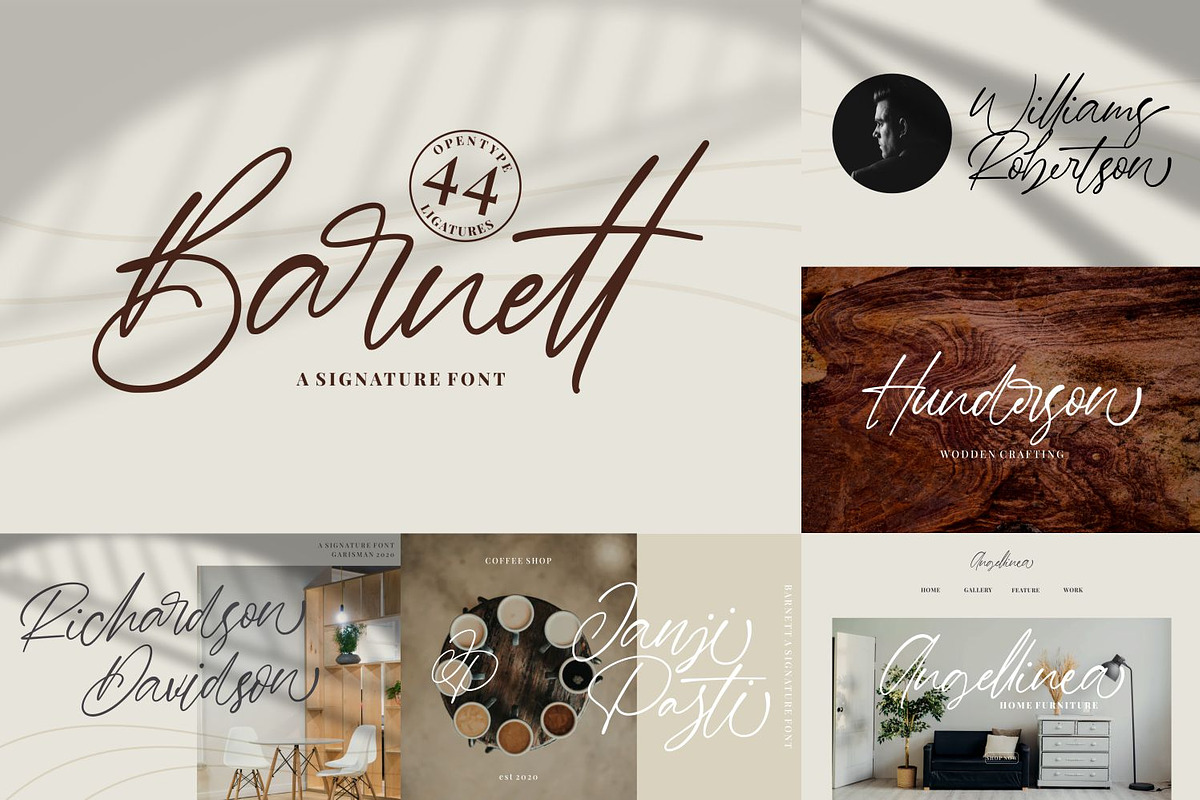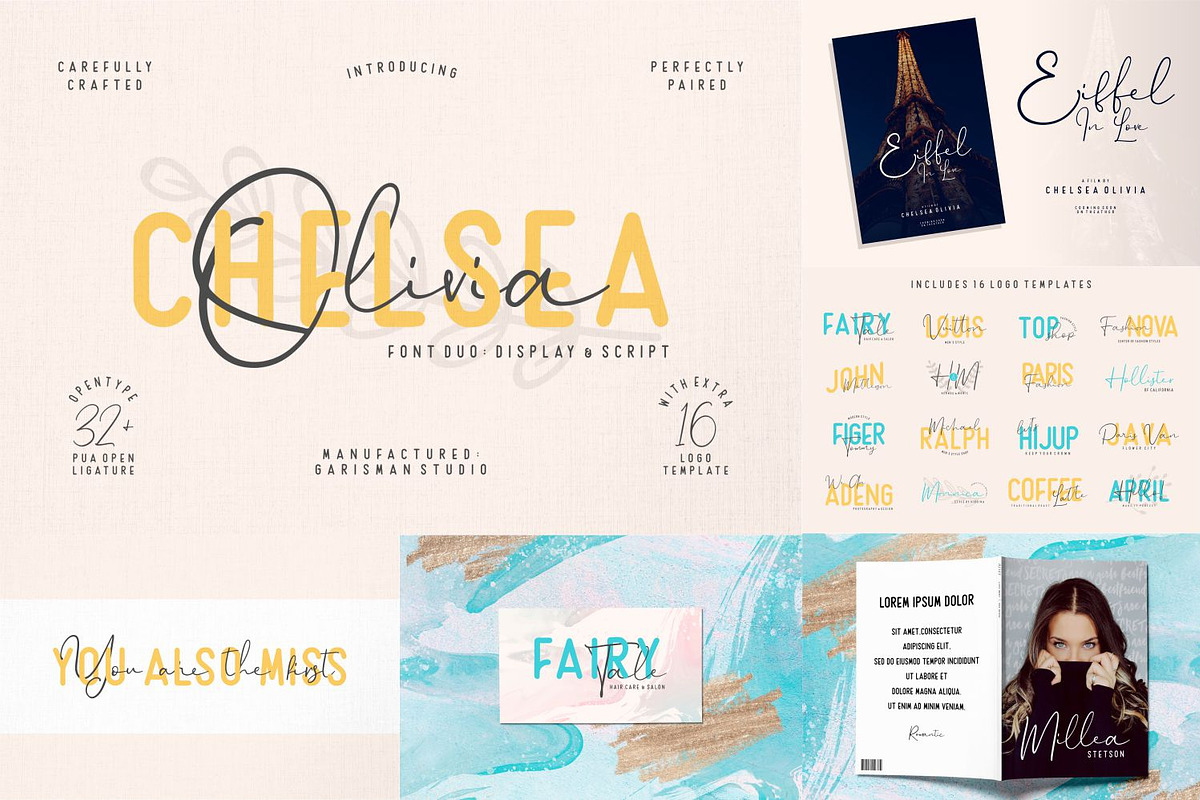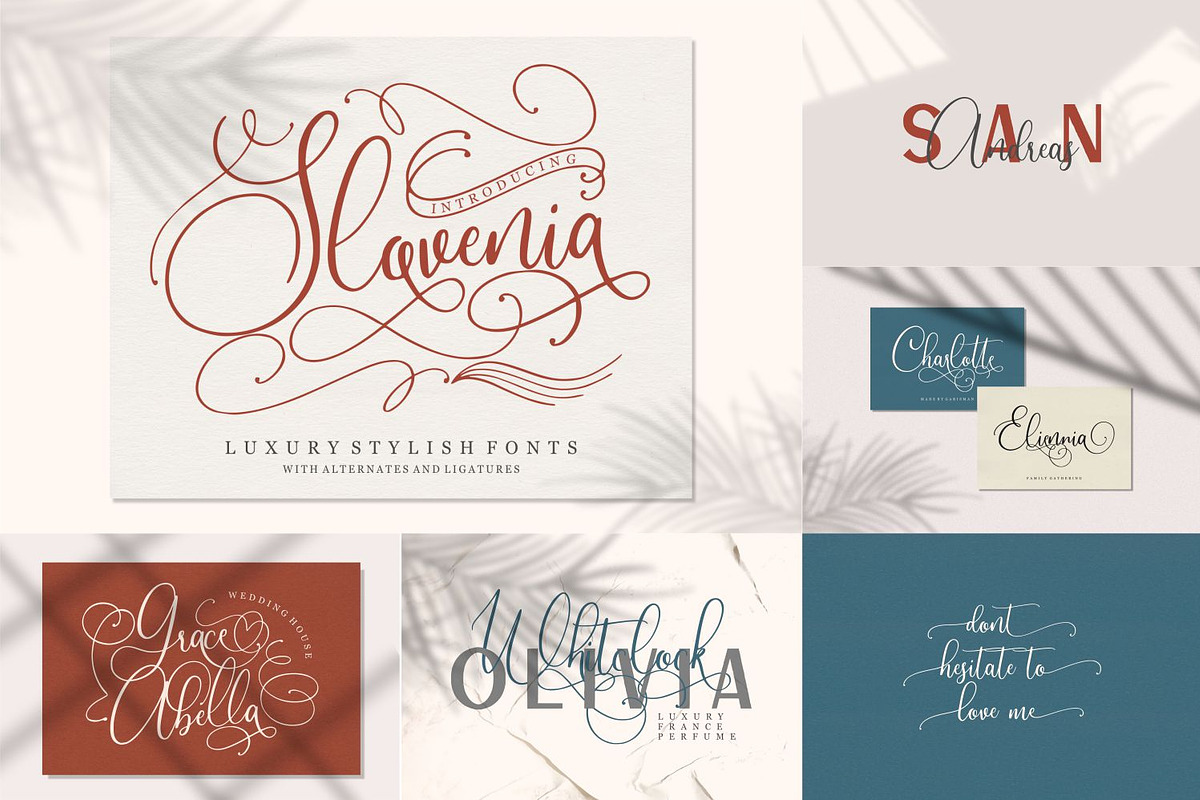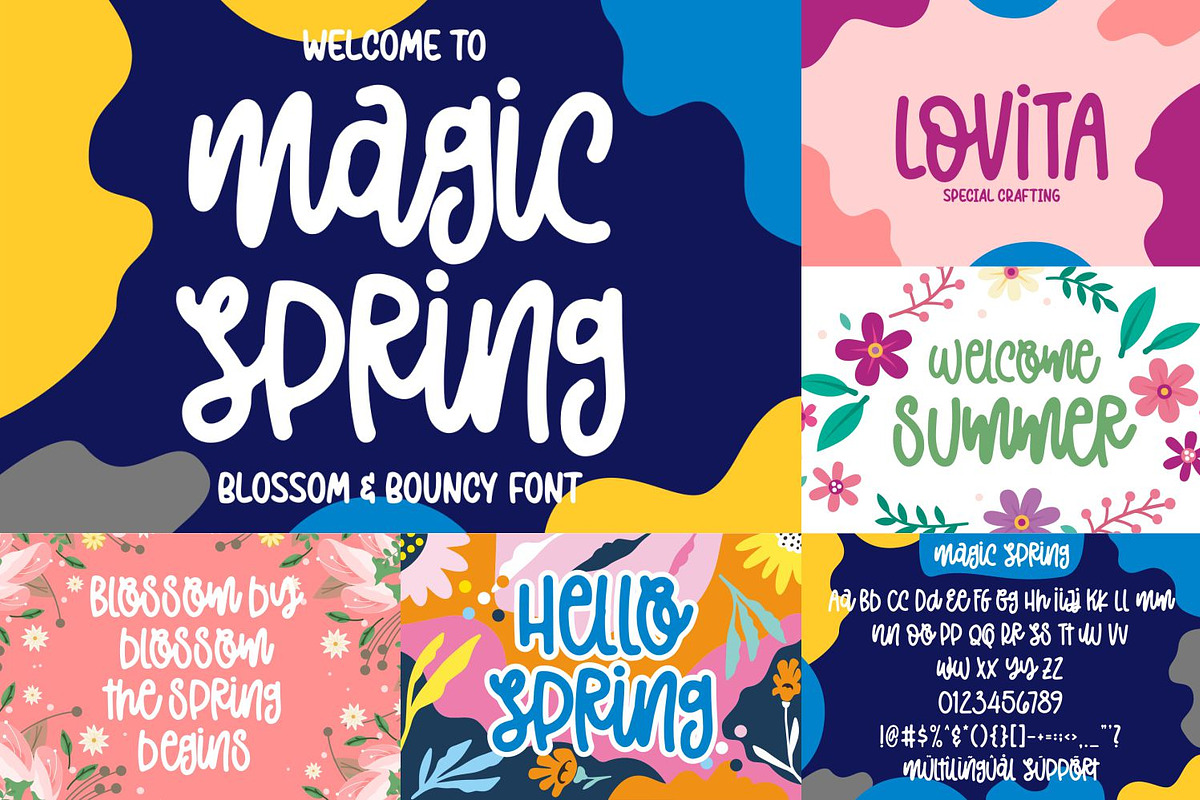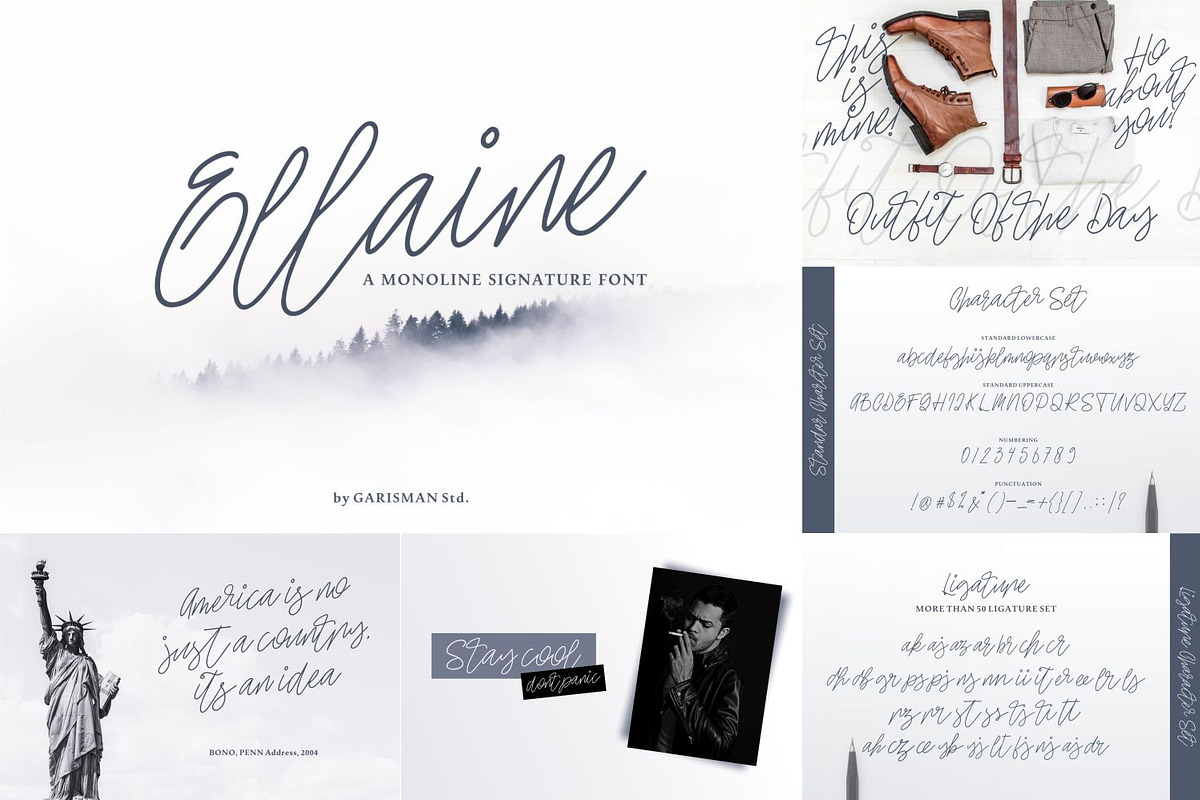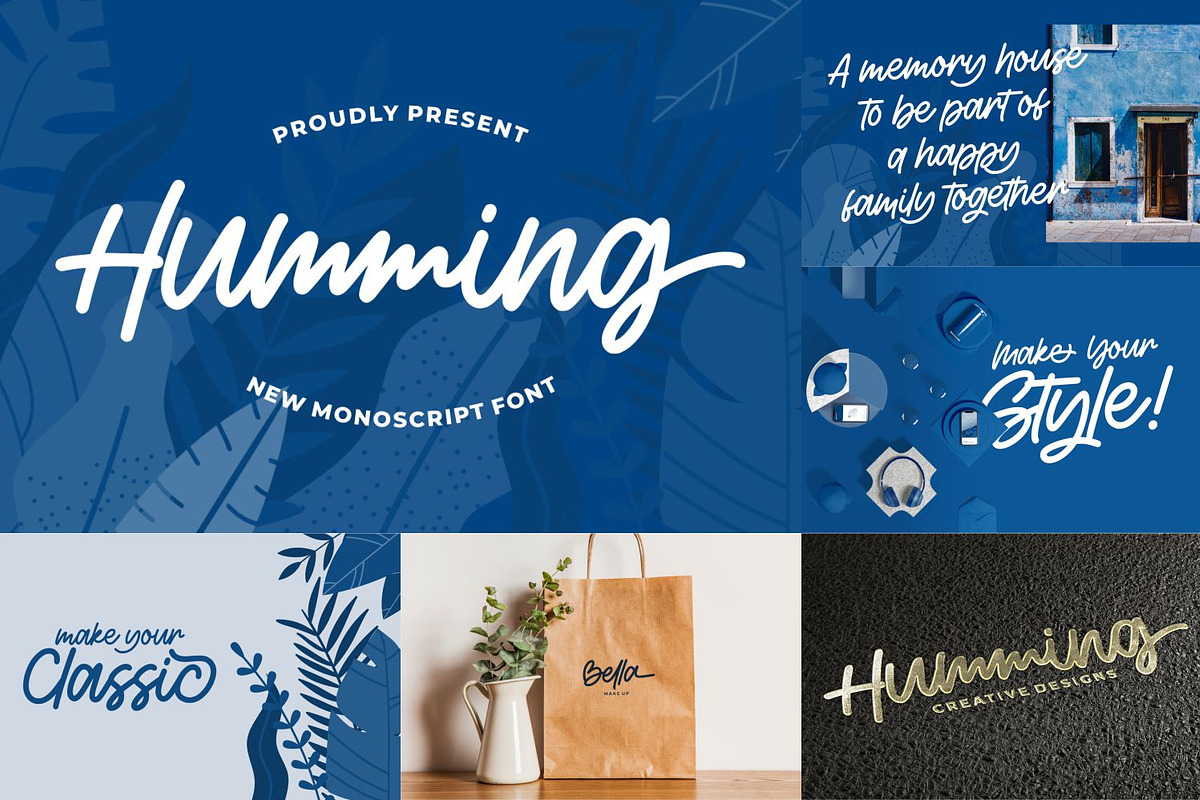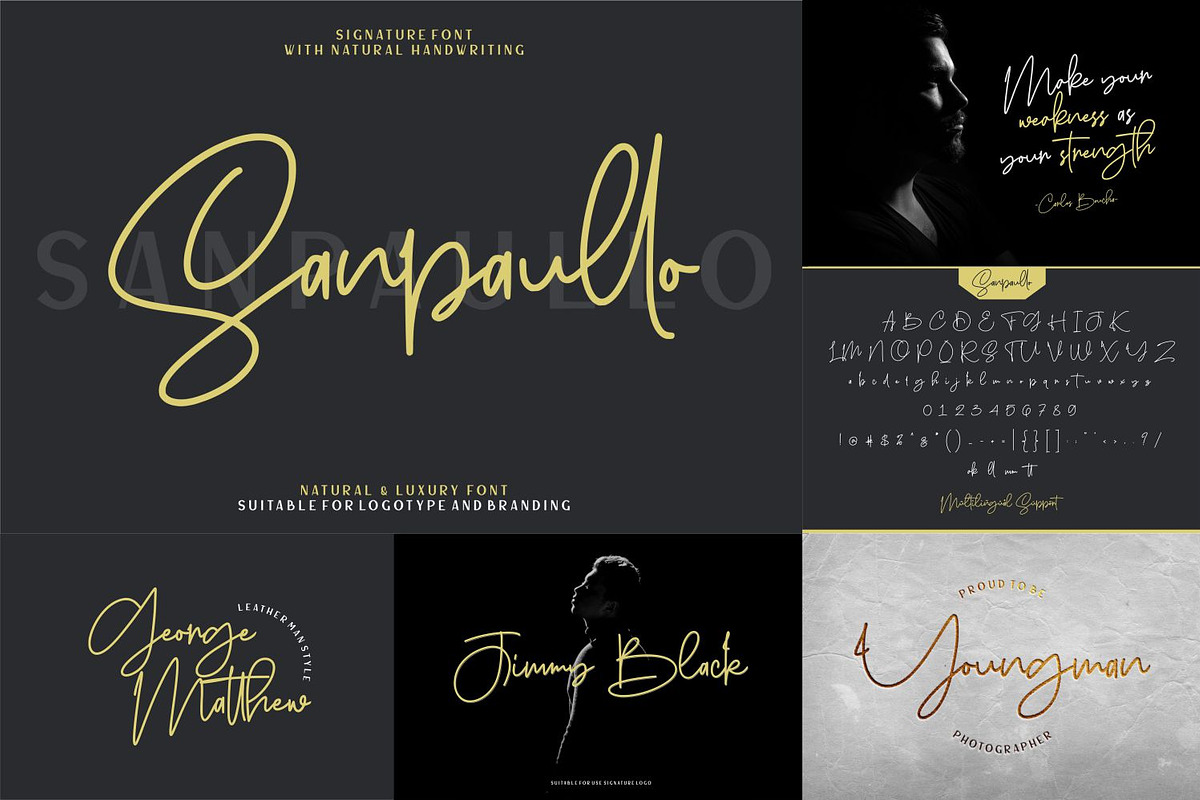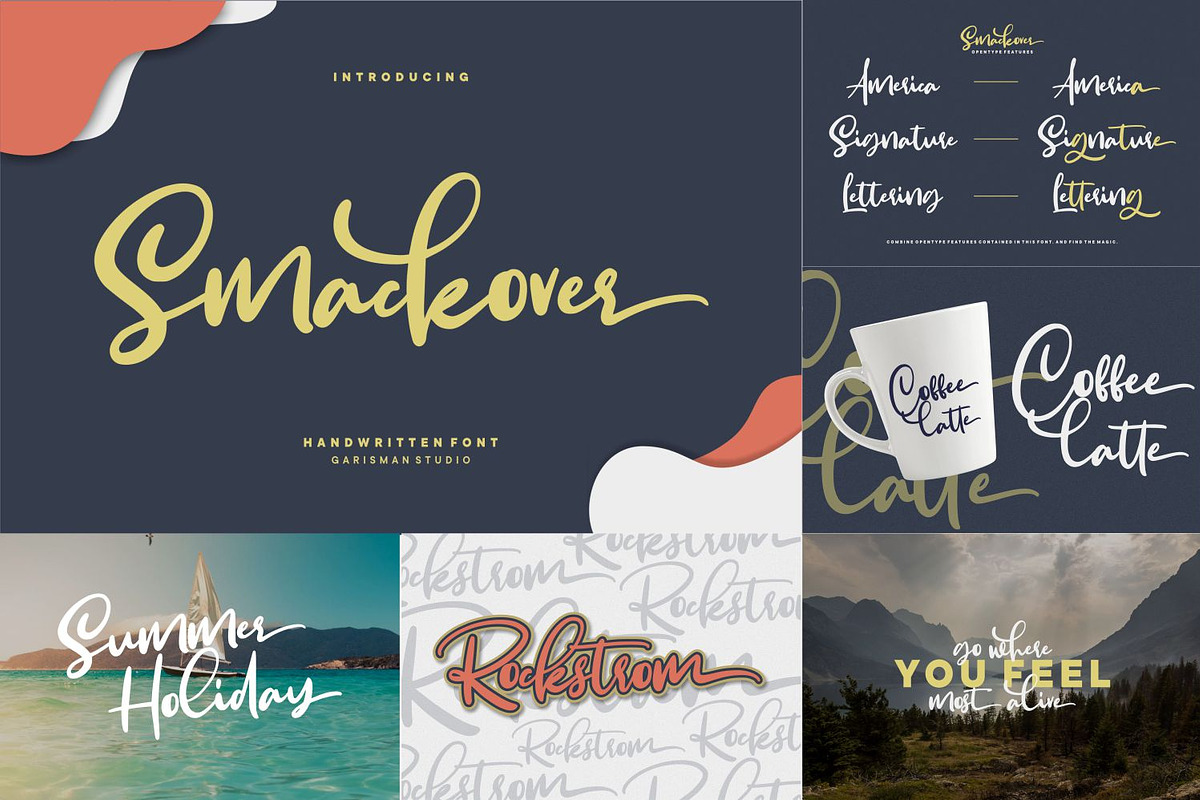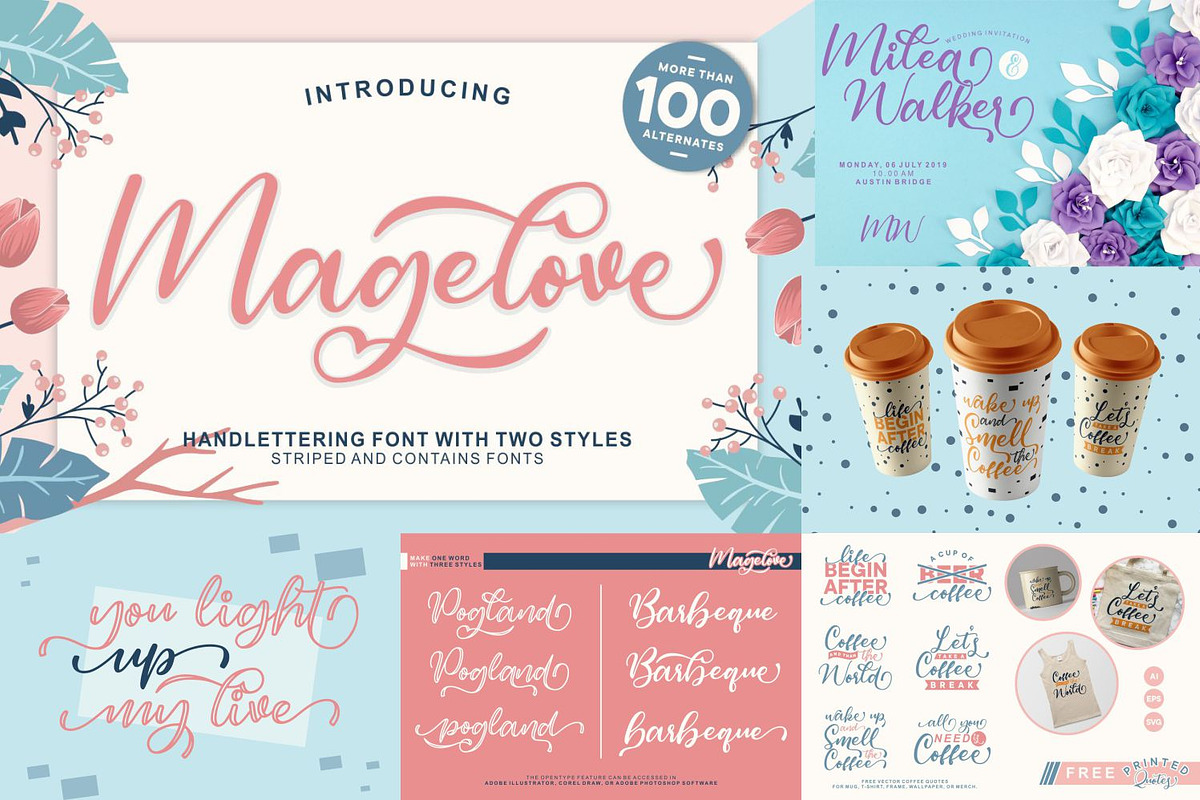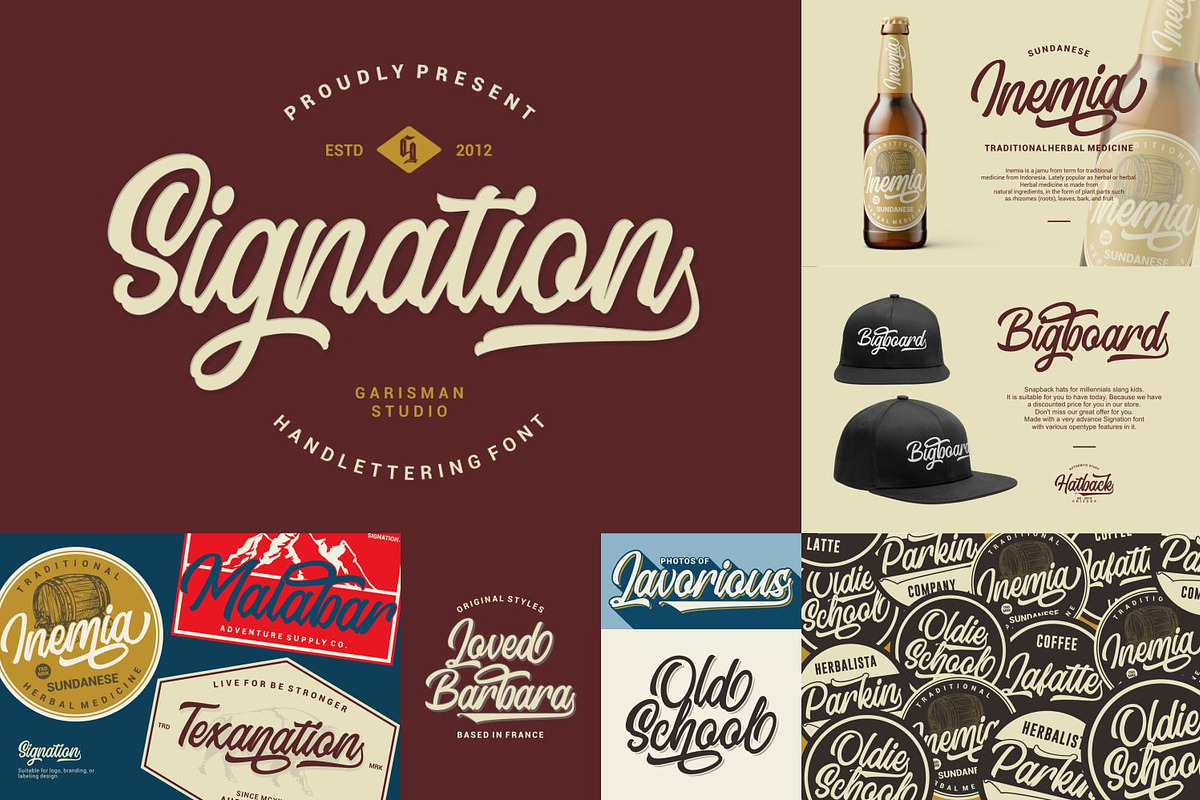
LUXURY & BEAUTY Script Font Bundle
Proudly Present LUXURY & BEAUTY Handwritten Font Bundle
LUXURY & BEAUTY Handwritten Font Bundle is specifically for all designers who like display, crafty, or happy styles to be used in various media designs: headlines, posters, logos, t-shirt designs, greeting cards, watercolor, craft or whatever.
- Uppercase & Lowercase letters
- Opentype Features
Font Included:
- Amoore
- Ellaine
- JustJessy
- Letter Hellen
- Chelsea Olivia
- Donatellia
- Alinnea
- Slovenia
- Sanpaullo
- Smackover
- Beautiful Heart
- Sattersoon
- Meranie
- Wattermellon
- Humming
- Ellouise
- Australove
- Barnett
- Lattely
- Herisson
- Sellwyne
- Courtland
- Lastwinter
- Magelove
- Winsberg
- Signation
- Magic Spring